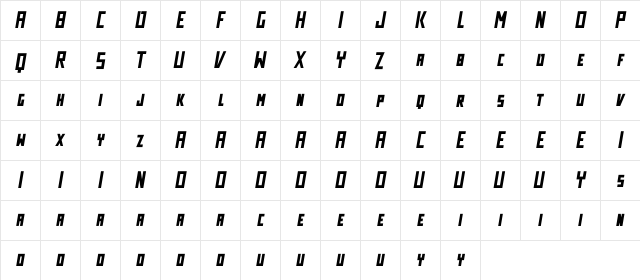
Tekno Italic
| Designer | Corey Mitchell |
Design Context for Tekno Typeface
Tekno is a composed and adaptable typeface that performs quietly and consistently across a wide range of design contexts. Its italic angle brings a sense of urgency and motion to the letterforms.
Pro Tip: Use Tekno for emphasis, pull quotes, and subheadings where its slanted energy can add rhythm to the layout.